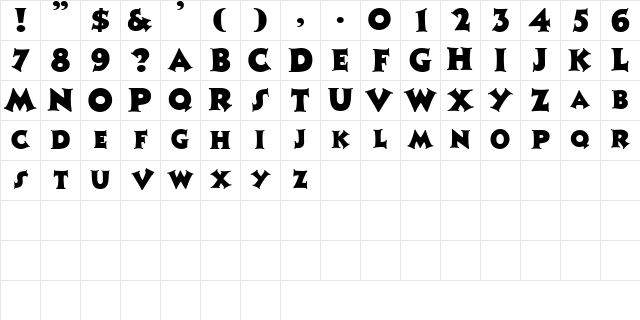
BigfootSCapsSSK Regular
BigfootSCapsSSK Family
Design Context for BigfootSCapsSSK
BigfootSCapsSSK is a composed and adaptable typeface that performs quietly and consistently across a wide range of design contexts.
Pro Tip: Use BigfootSCapsSSK in both headline and body roles to test its range before committing to a single application.